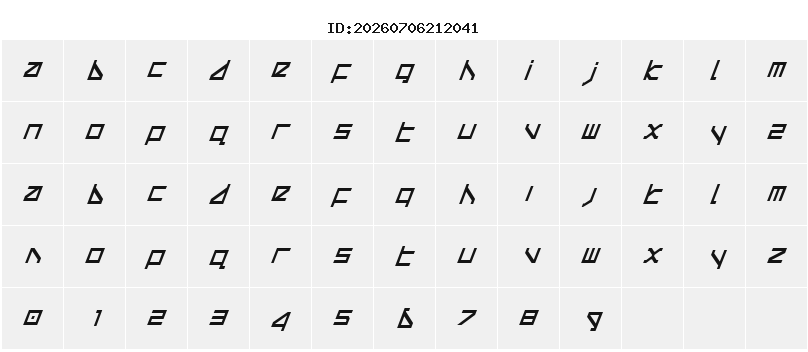
Delta Ray Condensed Italic Preview
• Font Name: Delta Ray Condensed Italic
• Font Style: Condensed Italic
• Full Font Name: Delta Ray Condensed Italic
About Delta Ray Condensed Italic.ttf
Delta Ray Condensed Italic.ttf is a modern, elegant sans-serif font designed for ultimate readability and visual harmony. Perfect for branding, headlines, web design, and print materials.